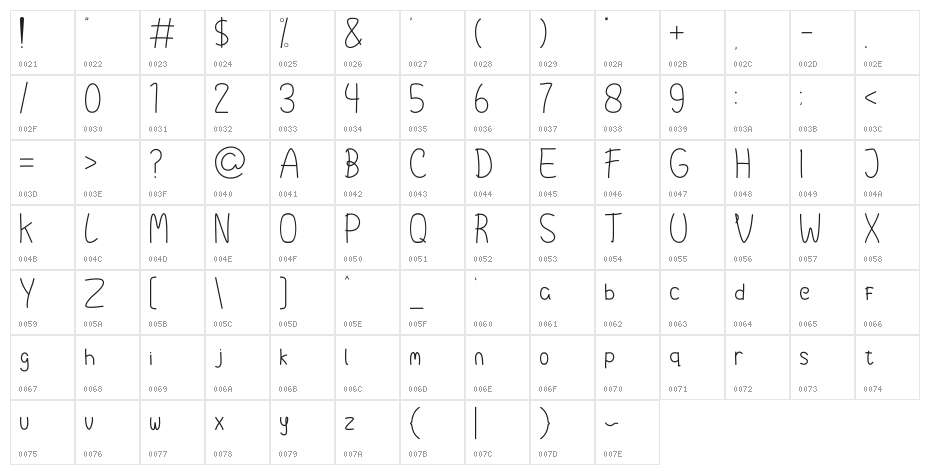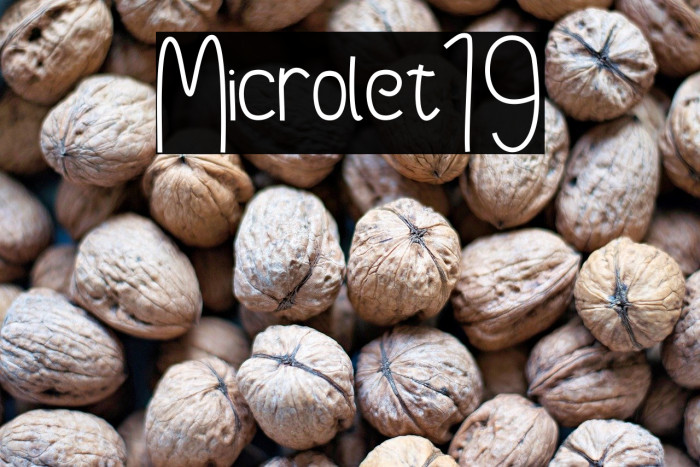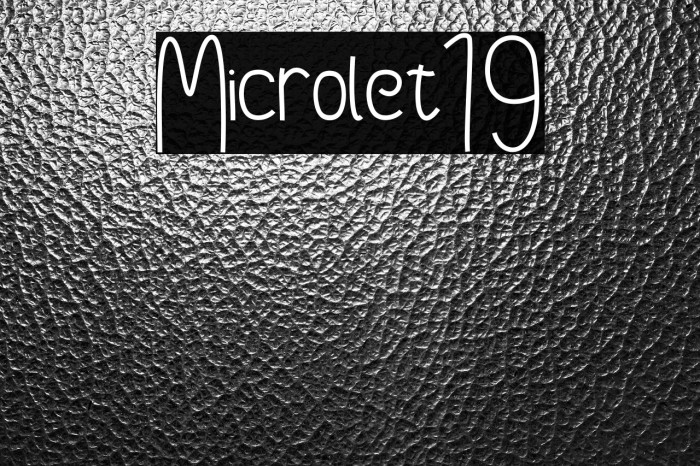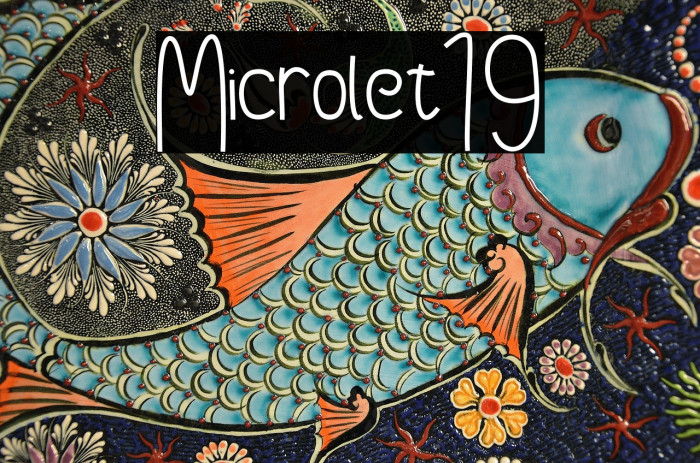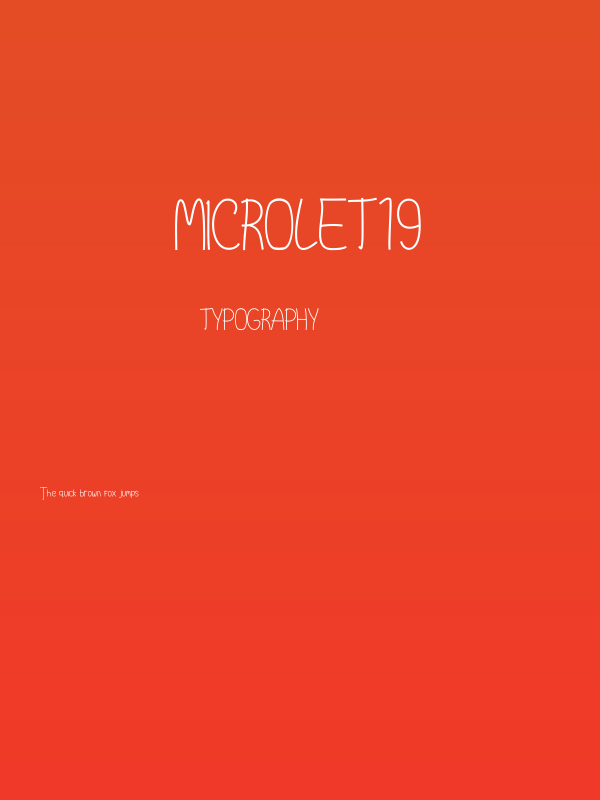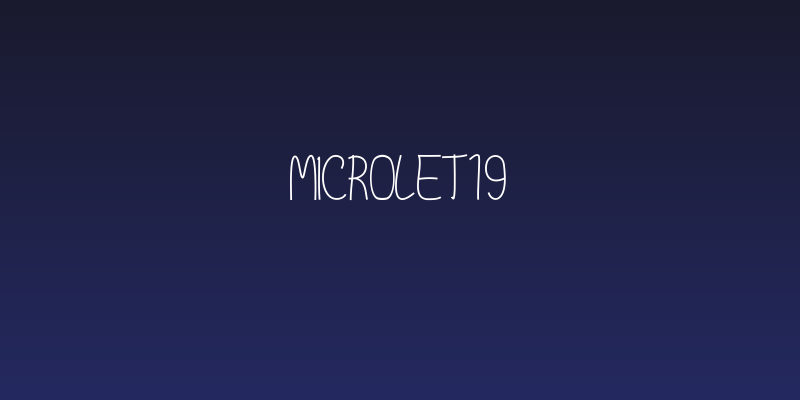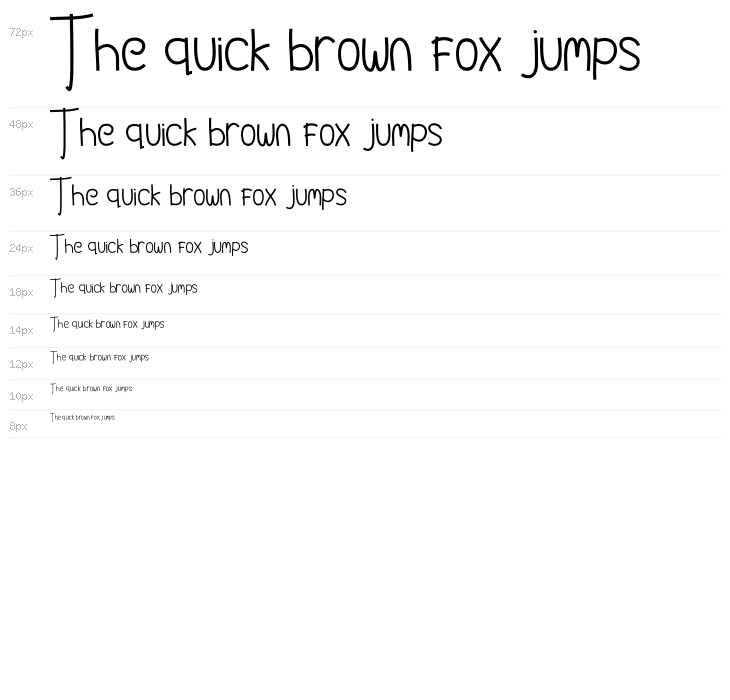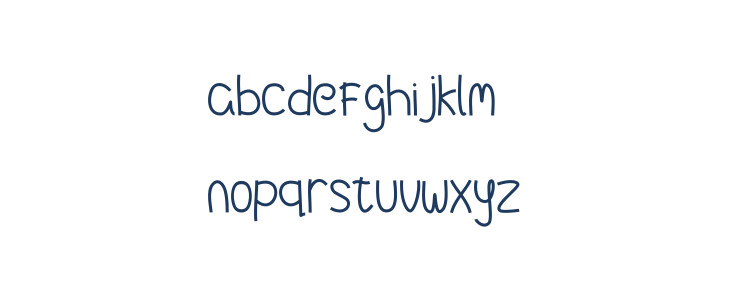
Microlet19 Font
Microlet19 Description
This playful and whimsical font features tall, narrow characters with a hand-drawn appearance. The strokes are smooth and slightly irregular, giving it a casual and friendly vibe. The uppercase letters are elongated, while the lowercase letters maintain a consistent height, creating a harmonious balance. Numbers and special characters follow the same playful style, making it versatile for various creative projects. The font's unique charm lies in its ability to convey a sense of fun and informality, making it ideal for designs that aim to be approachable and engaging.
| Width | Condensed |
| Overall Style | Casual |
| Use Case | Headlines, Logos, Informal Text |
| Proposed Projects | Ideal for children's books, greeting cards, playful branding, and casual invitations. |